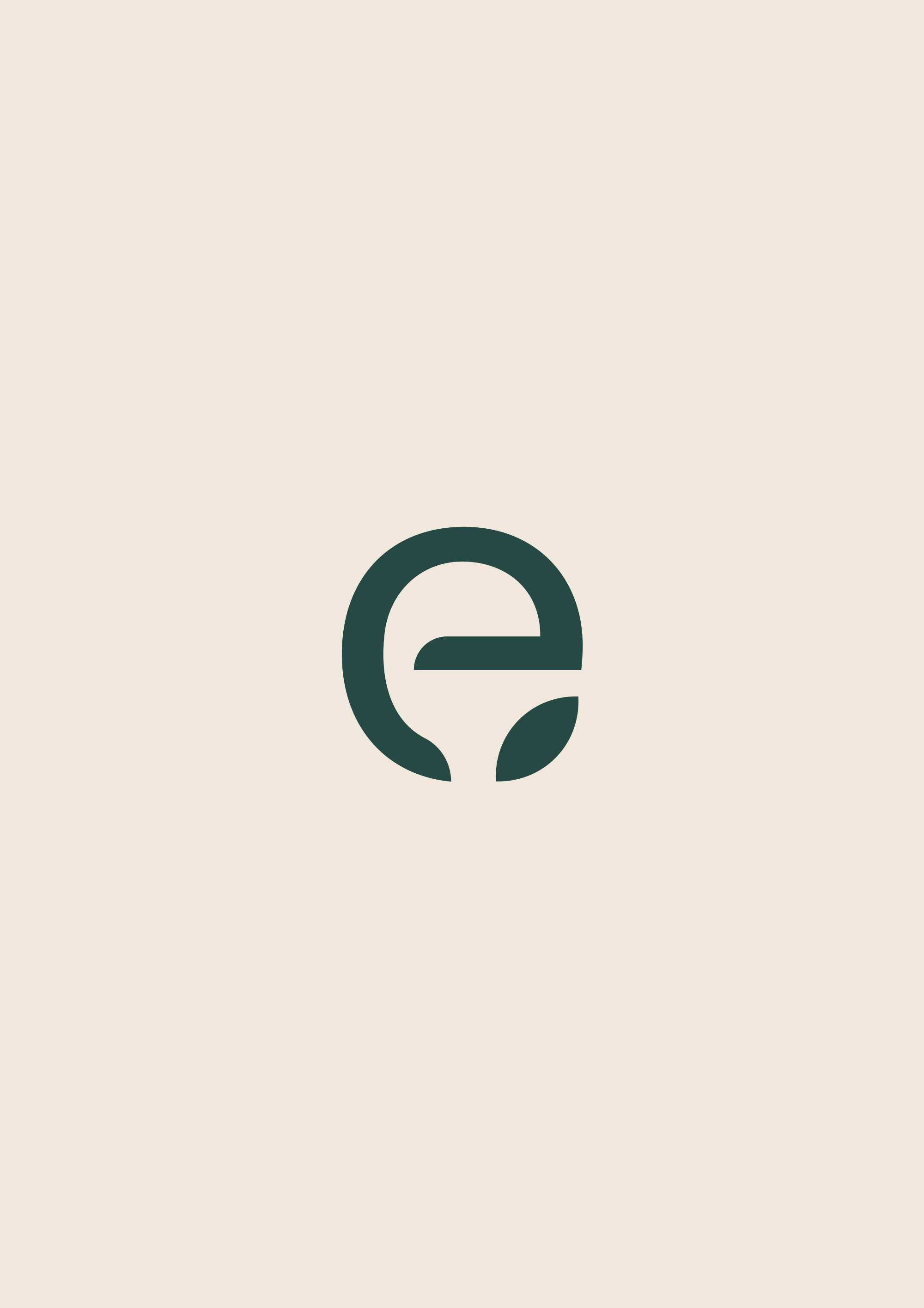
Envi
Evin, founder of Envi, had a vision to create a brand based on sustainable, eco-conscious living that would be just as convenient, accessible and recognizable as hypermarkets like Amazon and Walmart.
I wanted to take Evin’s vision and design a brand that read as eco-friendly and sustainable without intimidating clients with a feeling of complexity and exclusivity. That’s where the tagline we created “sustainable made attainable” was born.
Minimalist logo design for ENVI with a stylized letter 'e' integrated with two leaf shapes at the bottom, set against a light beige background.
Vertical green background with the word 'ENVI.' written in large, white, capital letters.
Dark green background with white outlined oval containing the words 'SUSTAINABLE MADE ATTAINABLE' in white text.
Eco-friendly circular logo with a stylized leaf icon in the center, surrounded by the text "SUSTAINABLE MADE ATTAINABLE - ENVI.ECO" on a light beige background.